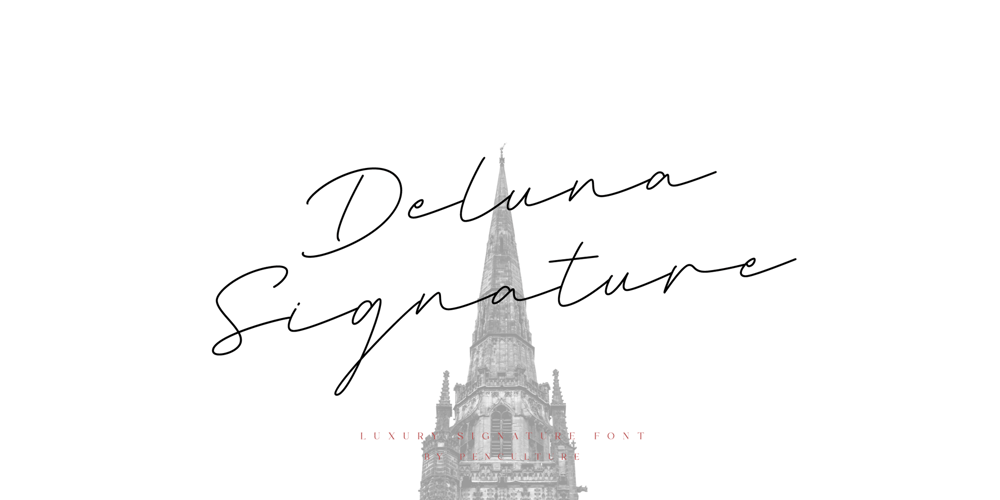
Deluna Signature Font Family was designed by Revo Farsiky and published by Pen Culture. Deluna Signature contains 1 styles and family package options. Introducing “Deluna Signature Font”Deluna Signature is modern and luxury signature font. This font comes with a monoline style and with a minimalist concept. This font is suitable for various purposes such as branding, logo design and many more.Feature and what will you get: Uppercase and lowercase Punctuation Multilingual Support PUA encoded font I really hope you enjoy it – please do let me know what you think, comments & likes are always hugely welcomed and appreciated. More importantly, please don’t hesitate to drop me a message if you have any issues or queries.Thank you